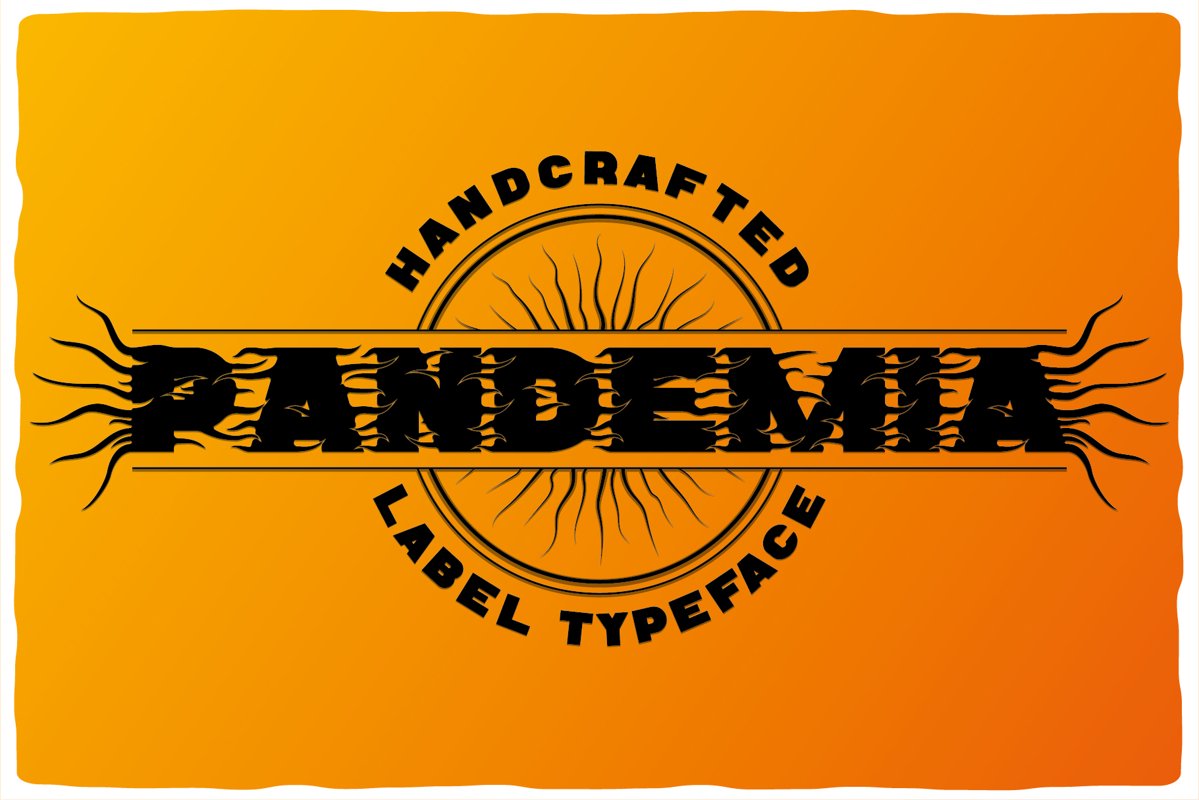
Introducing stylized as a virus hand crafted label typeface named Pandemia. Font contains capital and small characters. All capital characters have alternates for ending of words. Also font have original and simple styles. Simple style - clean and bold for perfect support of your design. Both of these styles have numbers, punctuation and multilingual characters. All available characters you can see on the preview.This typeface will be good viewed on vintage style posters, t-shirts, logo etc.